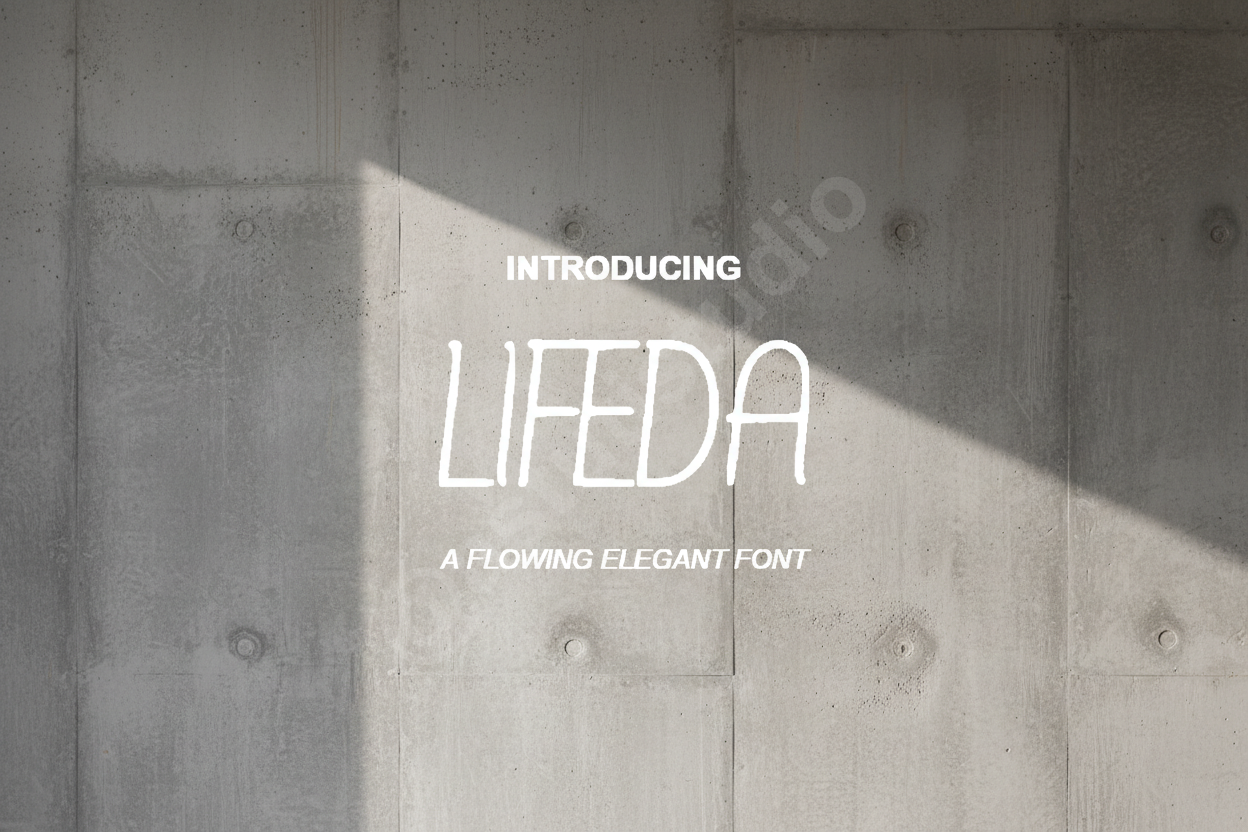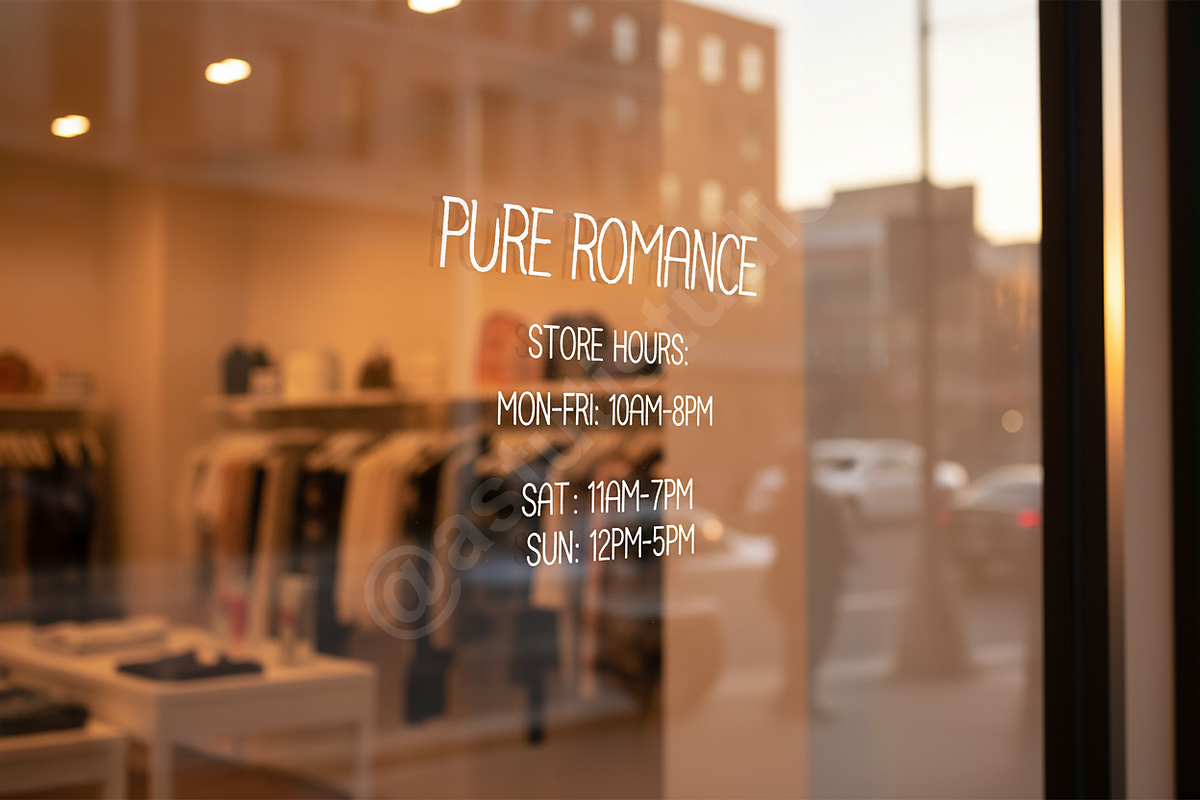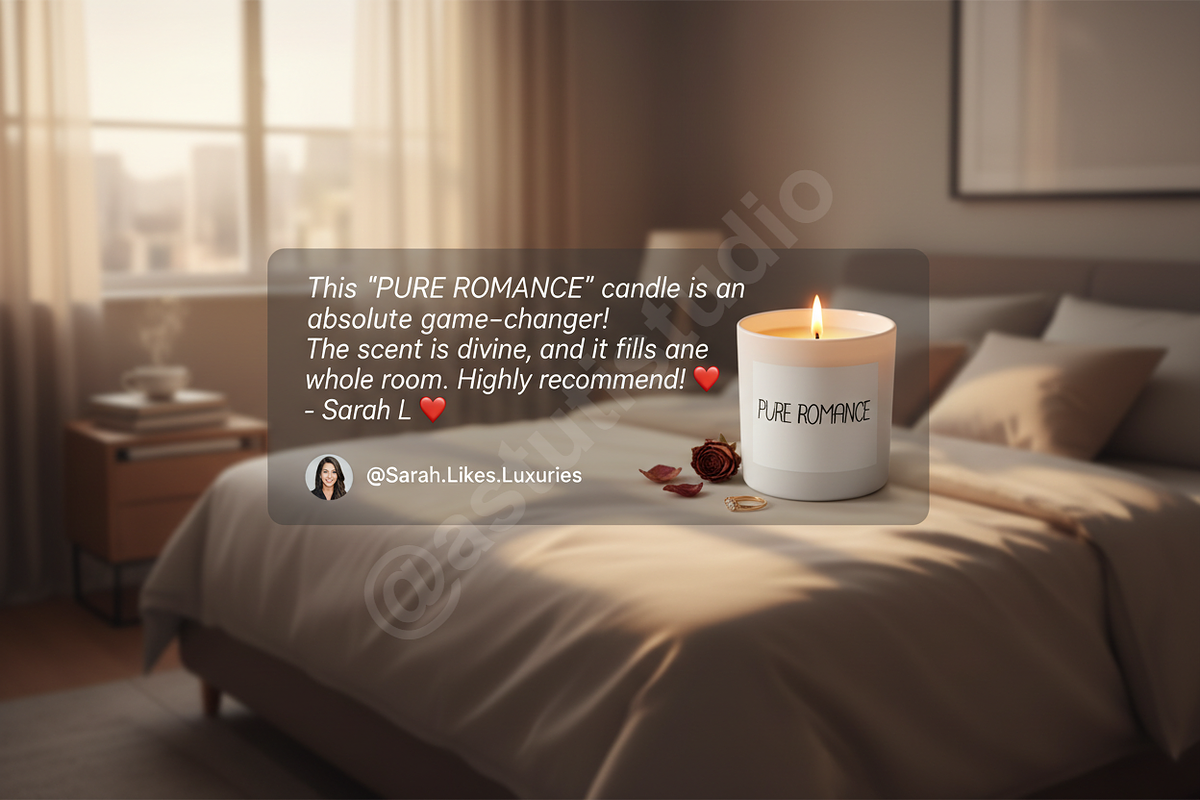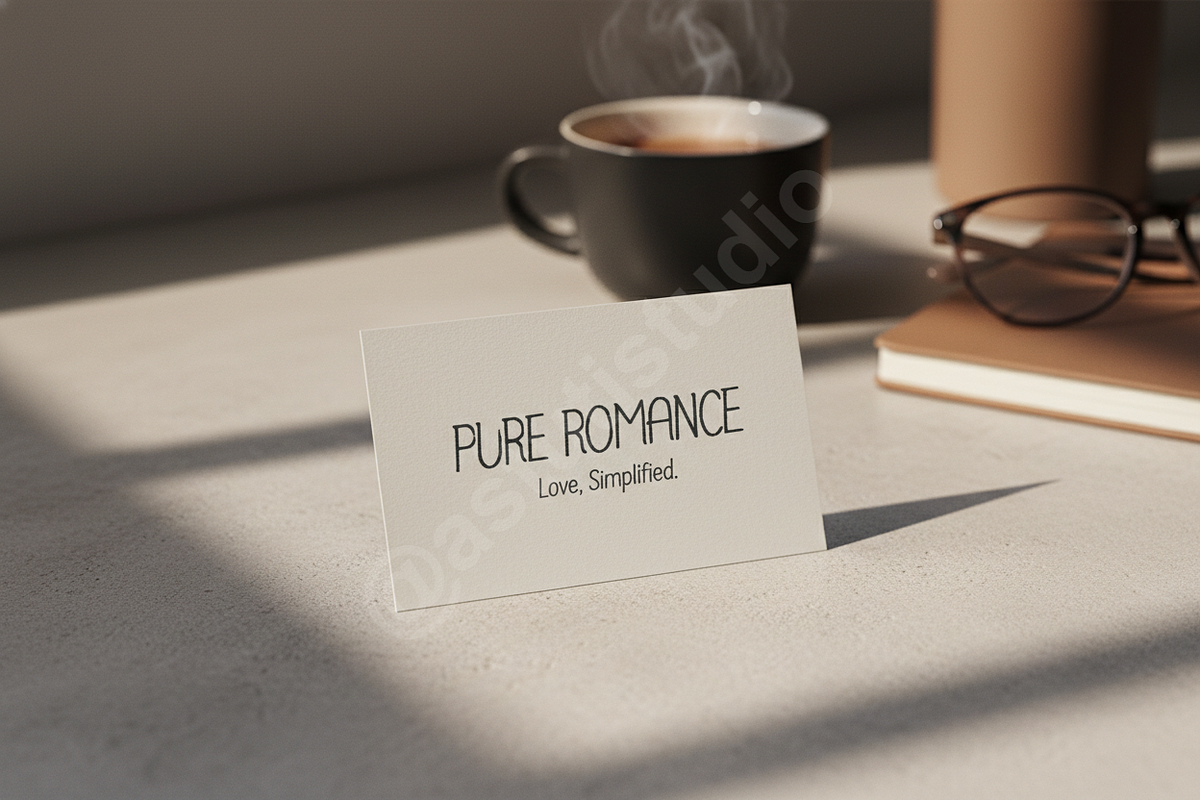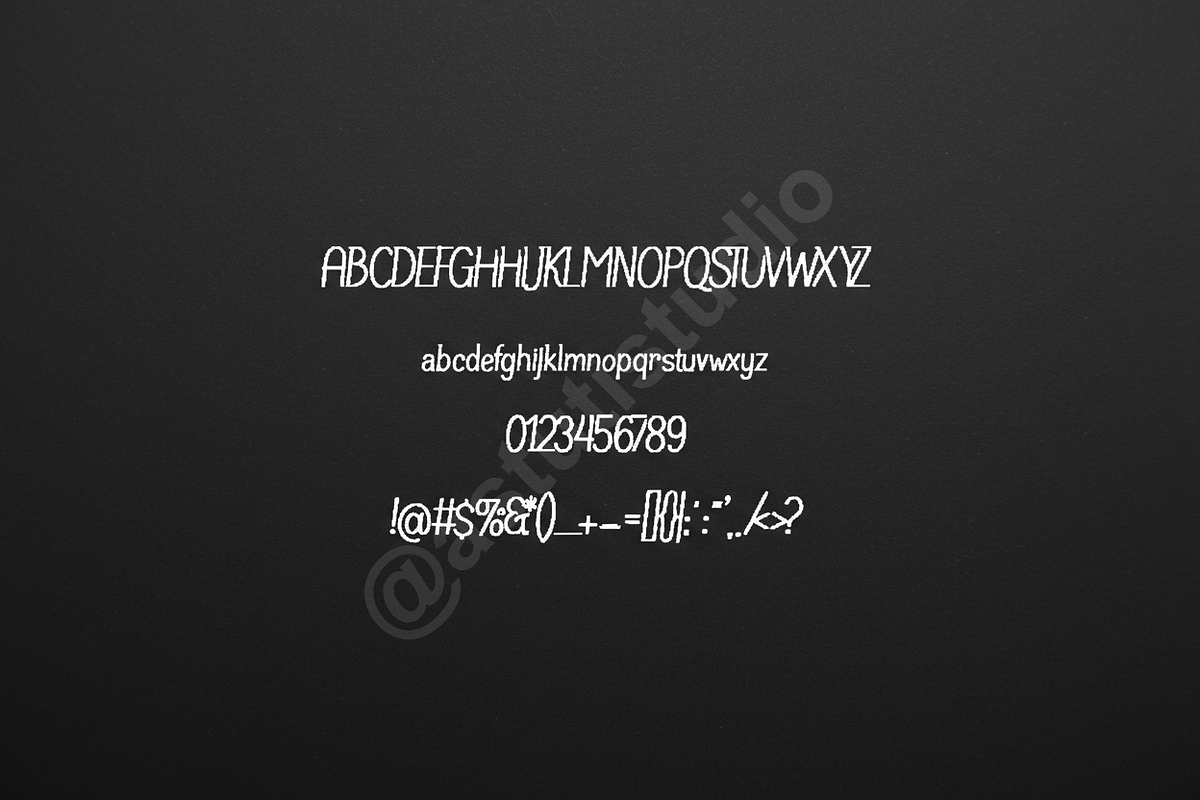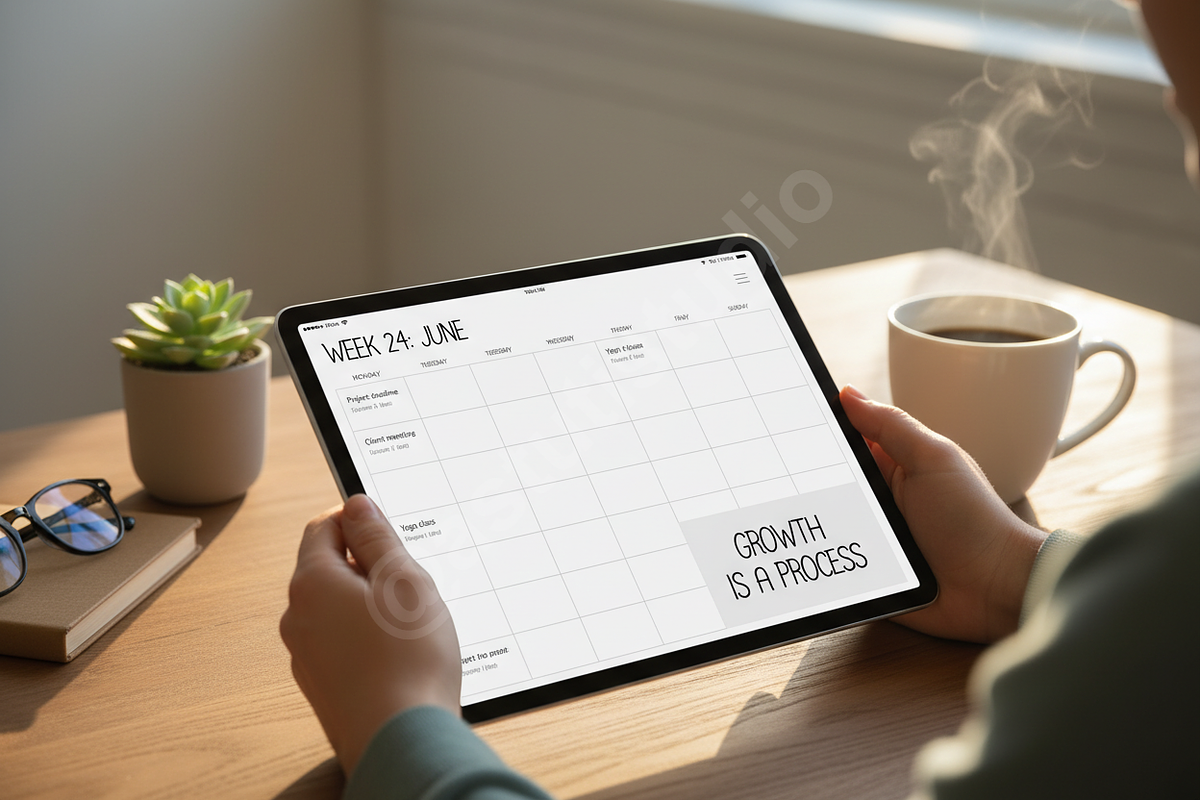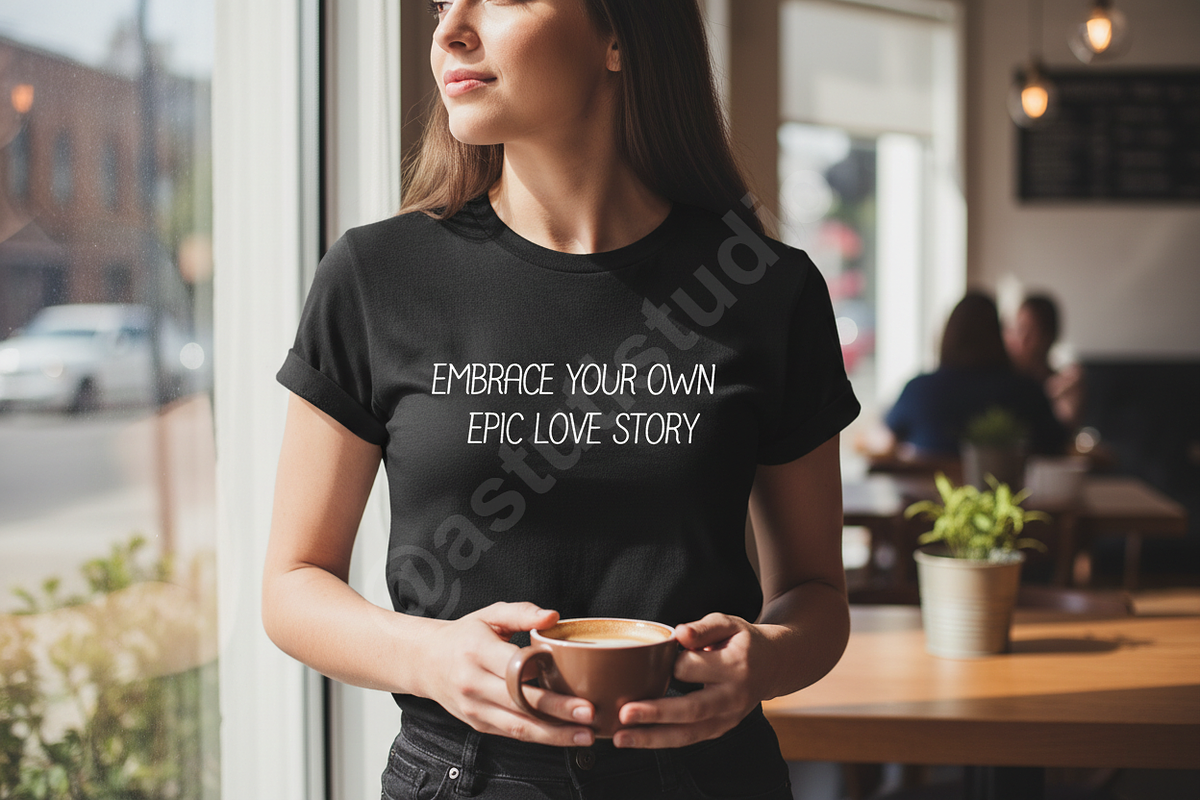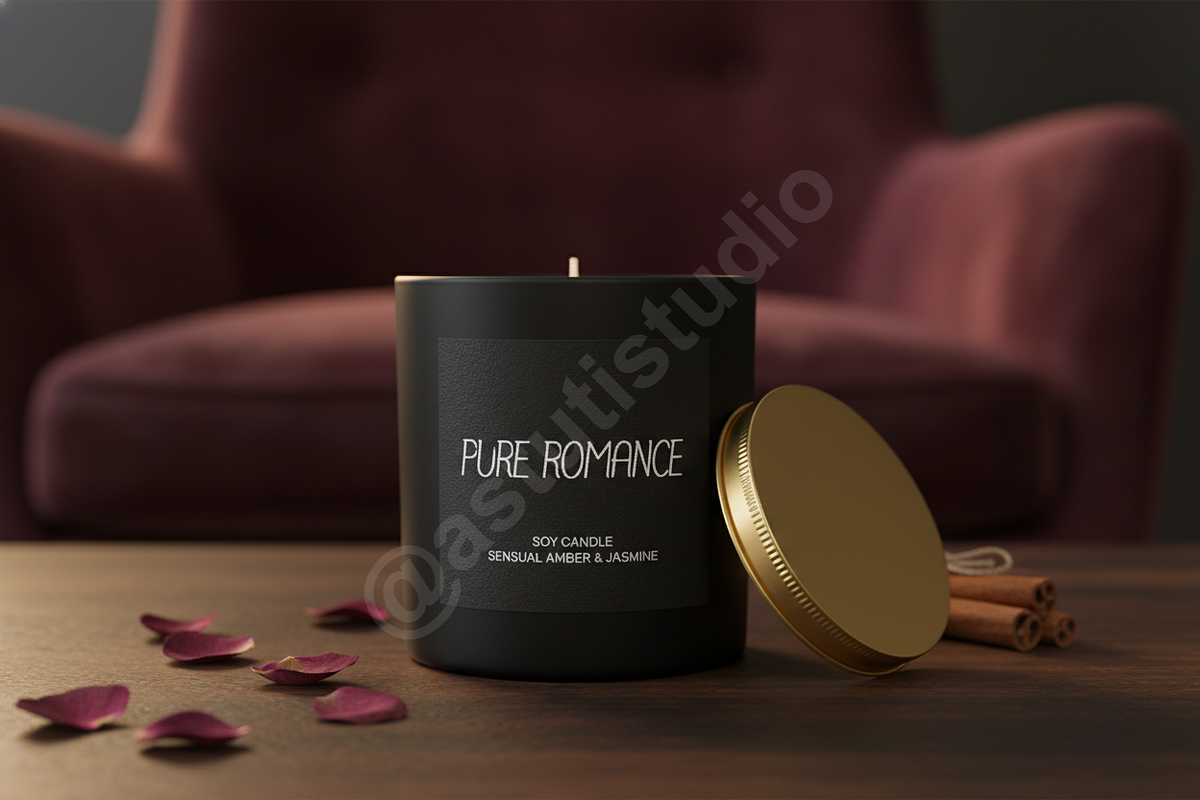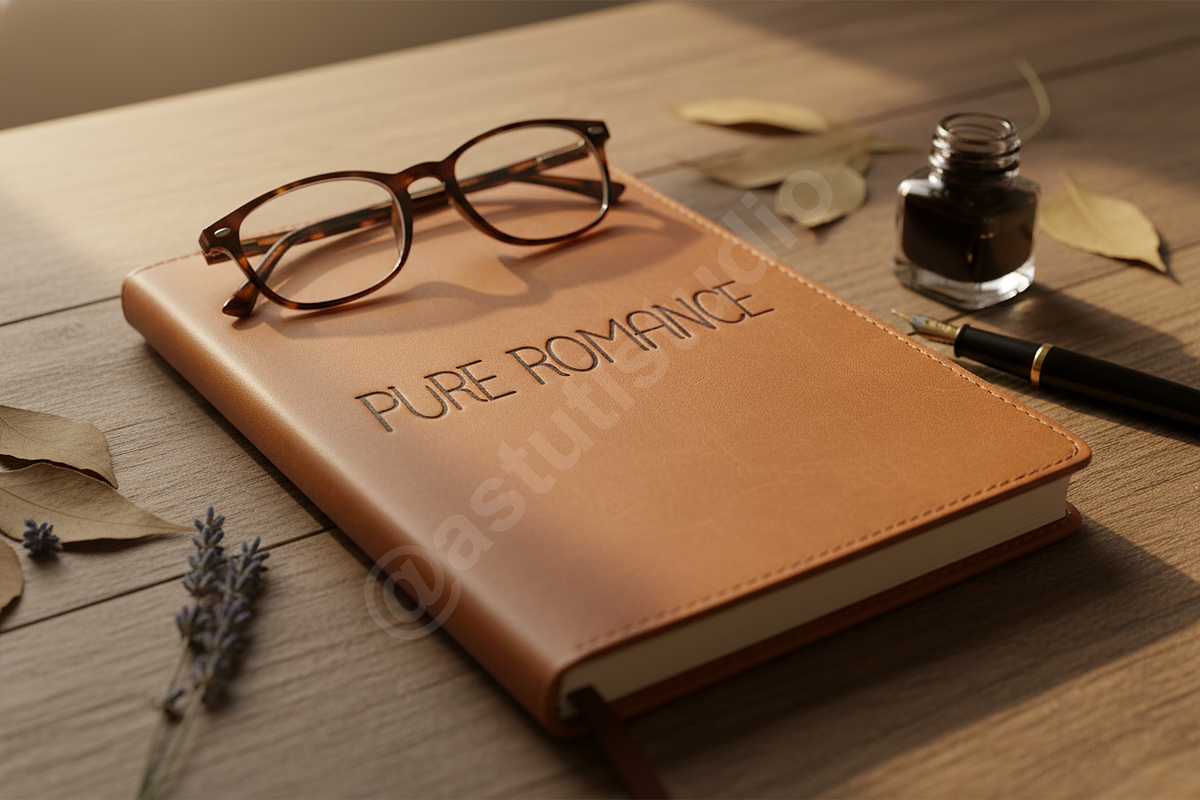
Lifeda | Elegant Serif Typeface for
LIFEDA - A SOPHISTICATED SERIF FOR HIGH-END DESIGN
Introduction Lifeda is a premium serif typeface meticulously crafted to embody elegance and timeless sophistication. Balancing classic proportions with contemporary details, Lifeda offers a high-contrast aesthetic that commands attention while maintaining impeccable legibility. Whether you are designing for a boutique fashion house or a high-end editorial publication, Lifeda provides the refined touch your project deserves.
- Elegant high-contrast strokes for a luxury feel
- Unique discretionary ligatures and stylistic alternates
- Comprehensive multilingual support for global reach
- Optimized kerning for professional-grade typesetting
- Perfectly suited for luxury branding, editorial layouts, and premium social media content
- Full set of uppercase and lowercase letters
- Numbers, punctuation, and symbols